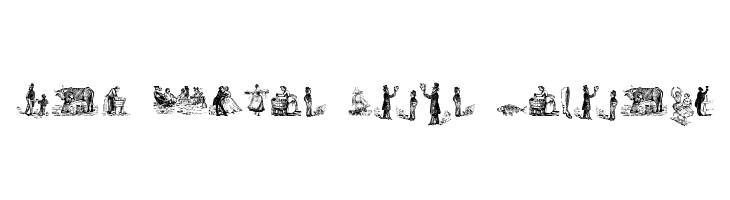
A collection of abstract and geometric symbols in various shapes.
A display font made from human silhouette illustrations.
Abstract symbol font with organic and geometric shapes in square icons.
A bold, expressive handwritten font with dynamic strokes.
A bold, expressive script font with dynamic flow and elegant curves.
A bold, decorative font with a dotted pattern and vintage marquee style.
A dotted outline font with a playful and modern aesthetic.
A bold, dynamic script font with flowing strokes and high contrast.
A geometric, monospaced font with clean lines and uniform proportions.
A playful, decorative font with intricate patterns and a hand-drawn style.
A segmented, digital-style font with a modern, tech-inspired look.
A dot-matrix style font with a retro digital appearance.
A bold, modern font with geometric lines and tight spacing.
A dynamic, brush-stroke font with an expressive and artistic style.
A modern, playful font with bold, rounded characters and a friendly style.
A modern, playful font with rounded edges and dynamic curves.
A bold, geometric font with a futuristic and cohesive design.
A flowing, cursive font with elegant loops and a dynamic slant.
A playful and elegant script font with flowing, connected letters and decorative flourishes.
A bold, shaded serif font with a vintage, three-dimensional style.
A lively and expressive handwritten font with fluid, cursive letterforms.
A lively, cursive font with fluid strokes and playful character design.
A playful, rounded font with a hand-drawn, whimsical style.
A fluid, cursive script font with elegant, connected strokes.
An elegant, flowing script font with a cursive, handwritten style.
A dynamic, brush-style handwritten font with expressive strokes.